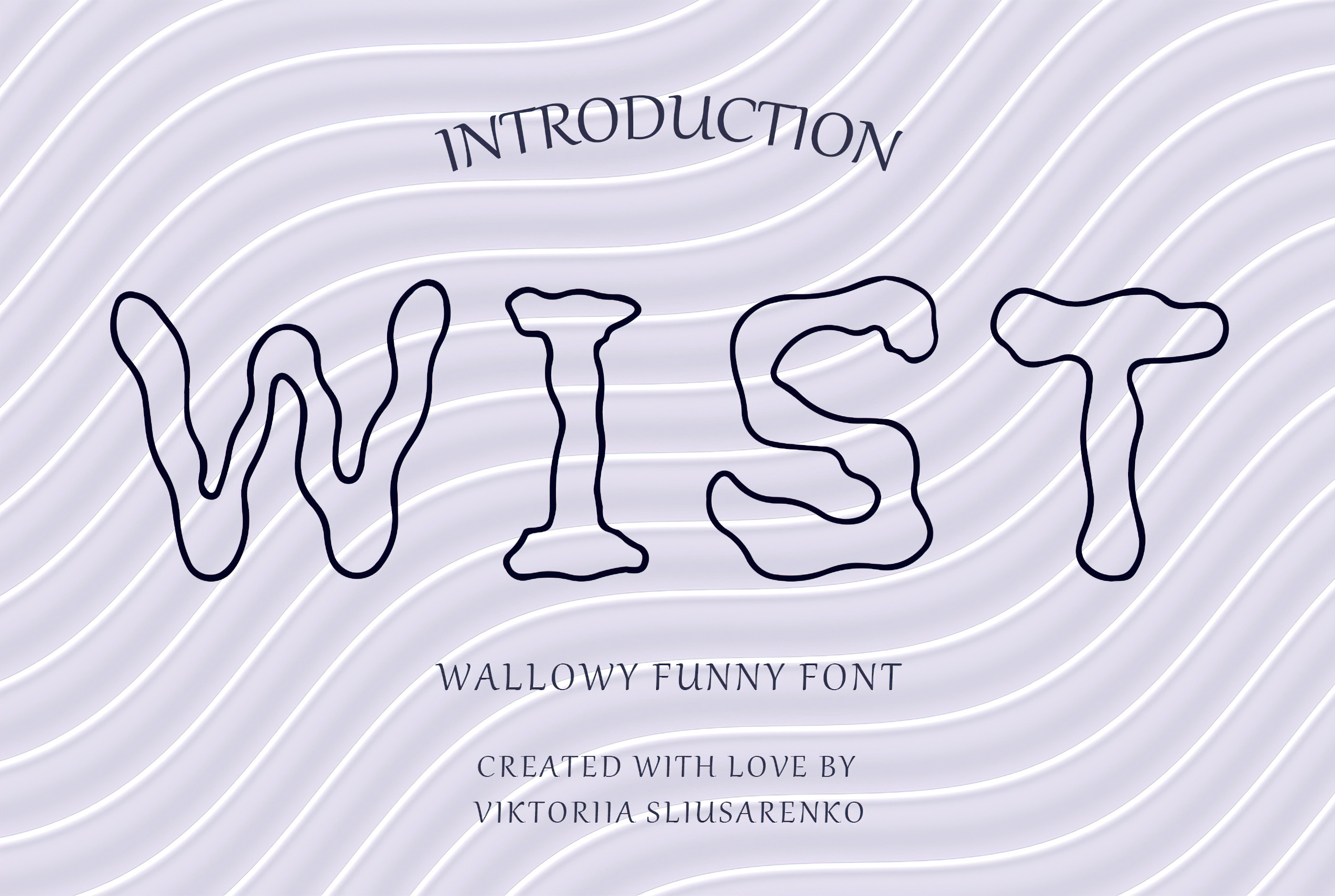
WIST - funny handwriting font
Introducing Wist: A Playful and Whimsical Handwritten Font for Creative Designs.
Wist is a delightful handwritten font that effortlessly brings a playful and whimsical touch to your creative projects. As a versatile vector font, it guarantees smooth and scalable lines, ensuring crispness and clarity at any size.
This unique font is known for its captivating characteristics, featuring both outer and inner contours that add depth and dimension to your text. With its wavy structure, Wist exudes a lively and dynamic vibe, infusing your designs with a sense of energy and movement.
Whether you're creating playful illustrations, eye-catching headlines, or charming invitations, Wist is the perfect choice to infuse your projects with a delightful and distinctive style. Let your creativity flow with Wist, the font that adds a touch of whimsy to every design. Unleash the magic of Wist and watch your designs come to life.